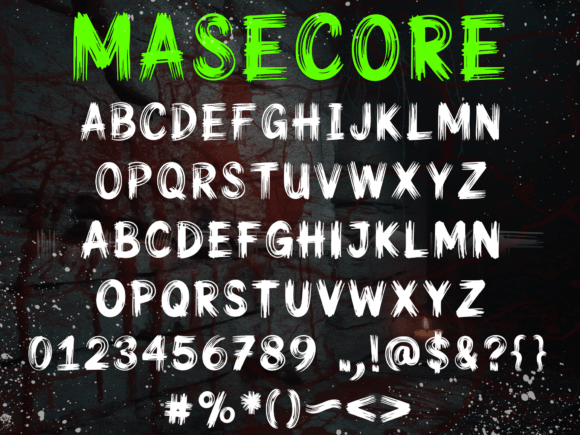
Introduction to Masecore Font Font
Fonts play a crucial role in design, and the Masecore Font font is a typeface that brings both character and versatility to any project. Whether you’re working on a branding project, a website, or a print design, the Masecore Font font offers a unique style that can elevate your work.
Masecore is a high-energy brush typeface with rugged edges and expressive strokes.
It comes with uppercase and lowercase letters, making it perfect for edgy branding, grunge posters, horror titles, and street-style designs Its hand-drawn texture gives your message power and movement.
Key Features of Masecore Font Font
Why Choose Masecore Font Font?
The Masecore Font font is more than just a typeface – it’s a design tool that helps you communicate your message with style and clarity. Its unique character set and versatile design make it suitable for a wide range of applications, from elegant invitations to bold headlines.
With its carefully crafted letterforms and balanced proportions, the Masecore Font font ensures readability and visual appeal across all mediums.
What makes Masecore Font font special?
The Masecore Font font stands out with its unique design, exceptional readability, and versatility across various design applications.